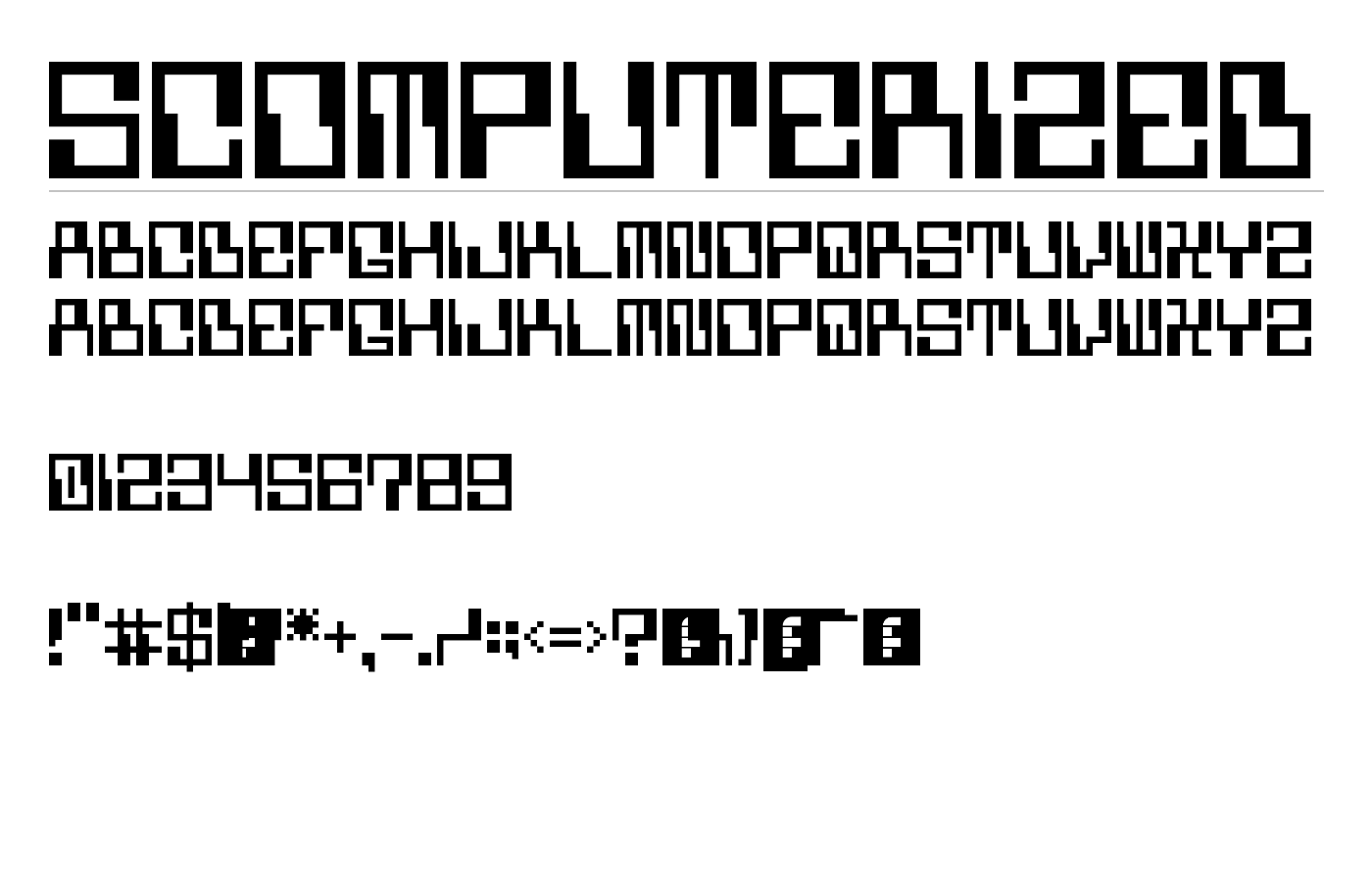
5Computerized is a bold, geometric sans serif font with a distinctly digital, pixelated style that evokes early computer and video game graphics. Its blocky letterforms and sharp angles create a futuristic, tech-savvy feel, making it ideal for retro-futuristic branding, gaming projects, or digital-themed headlines where a strong, technical vibe is desired. This font’s unique, modular design adds a playful yet structured personality suited for eye-catching logos and modern, technology-focused designs.
5Computerized Font
About 5Computerized Font